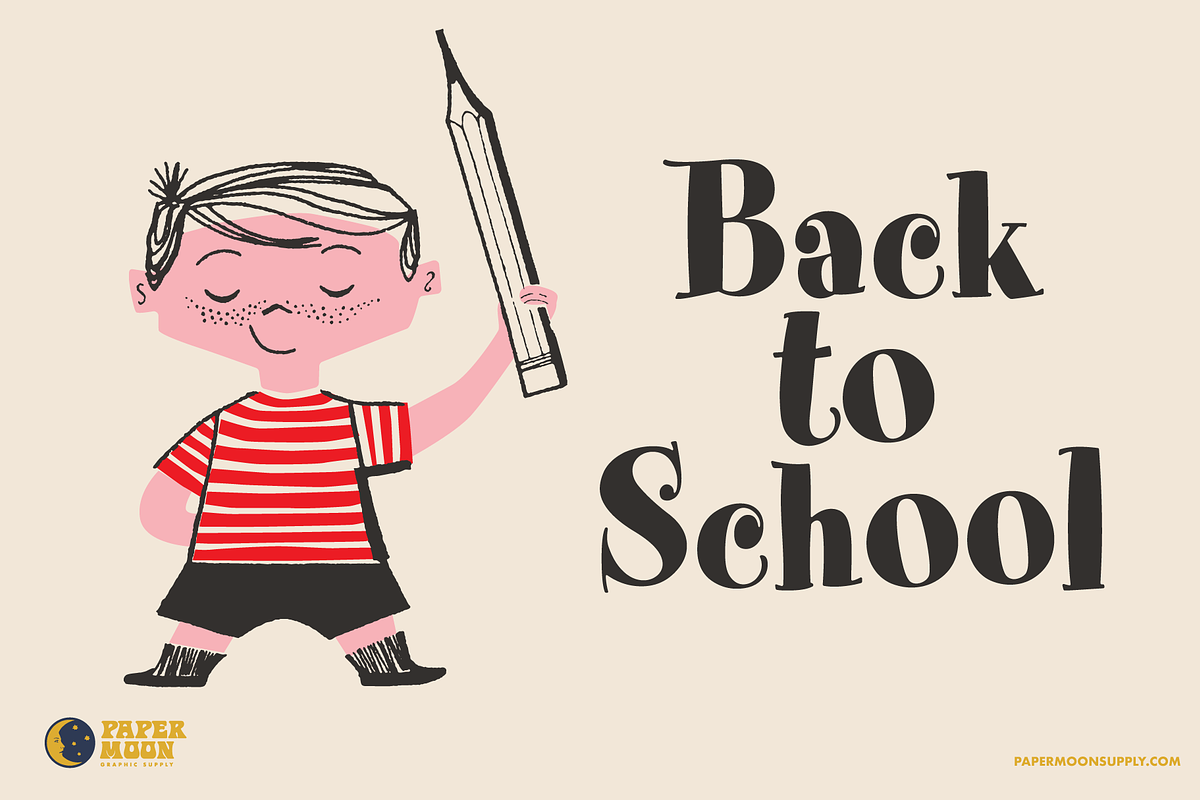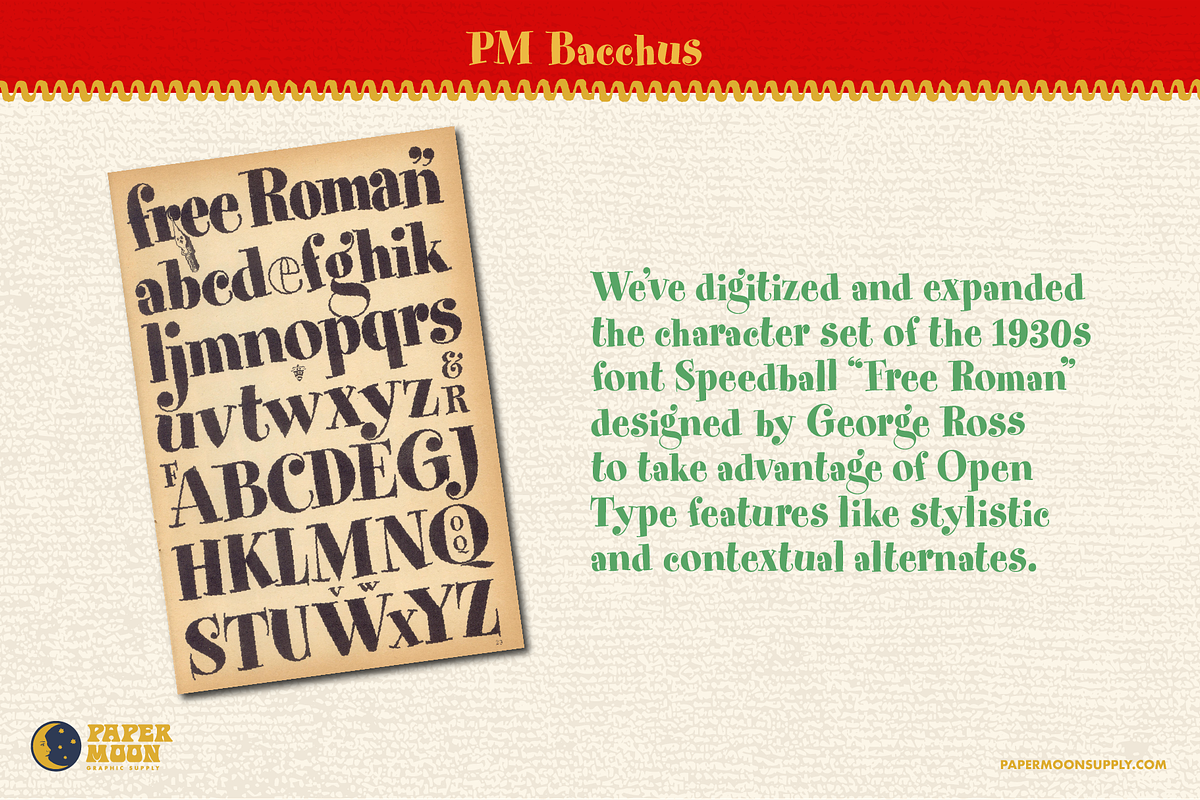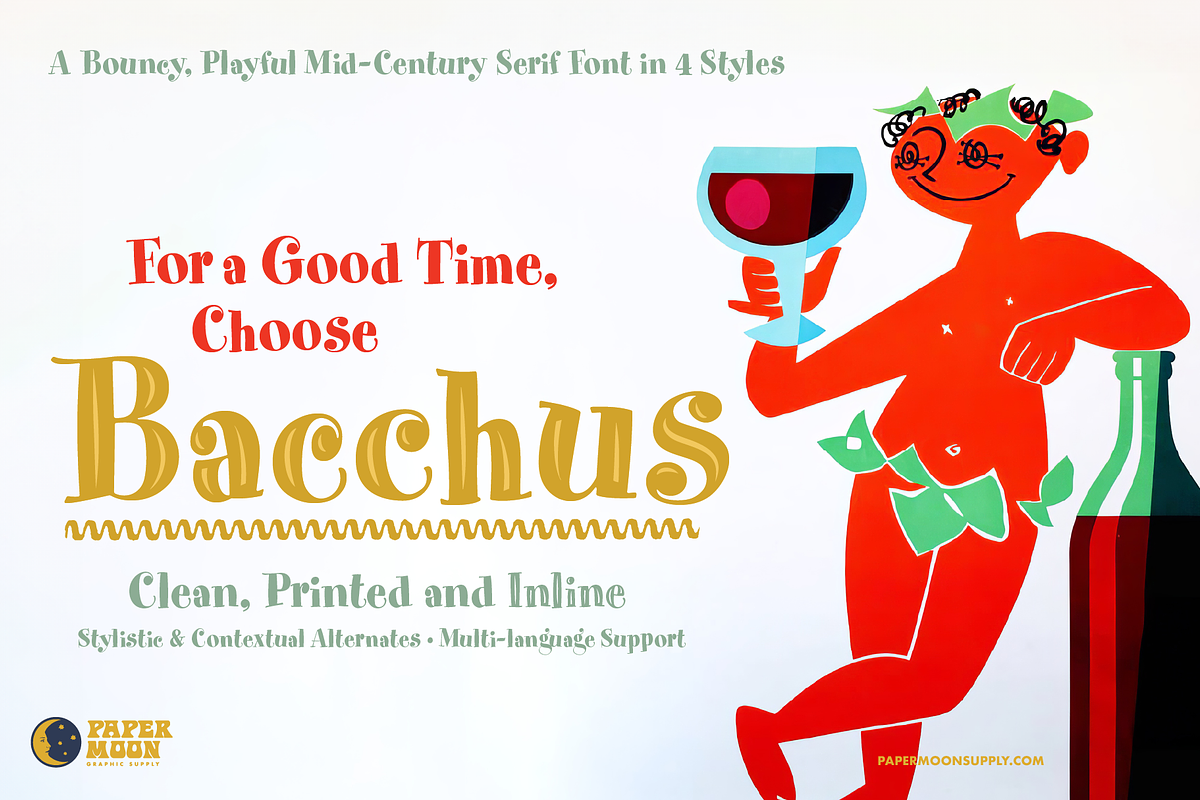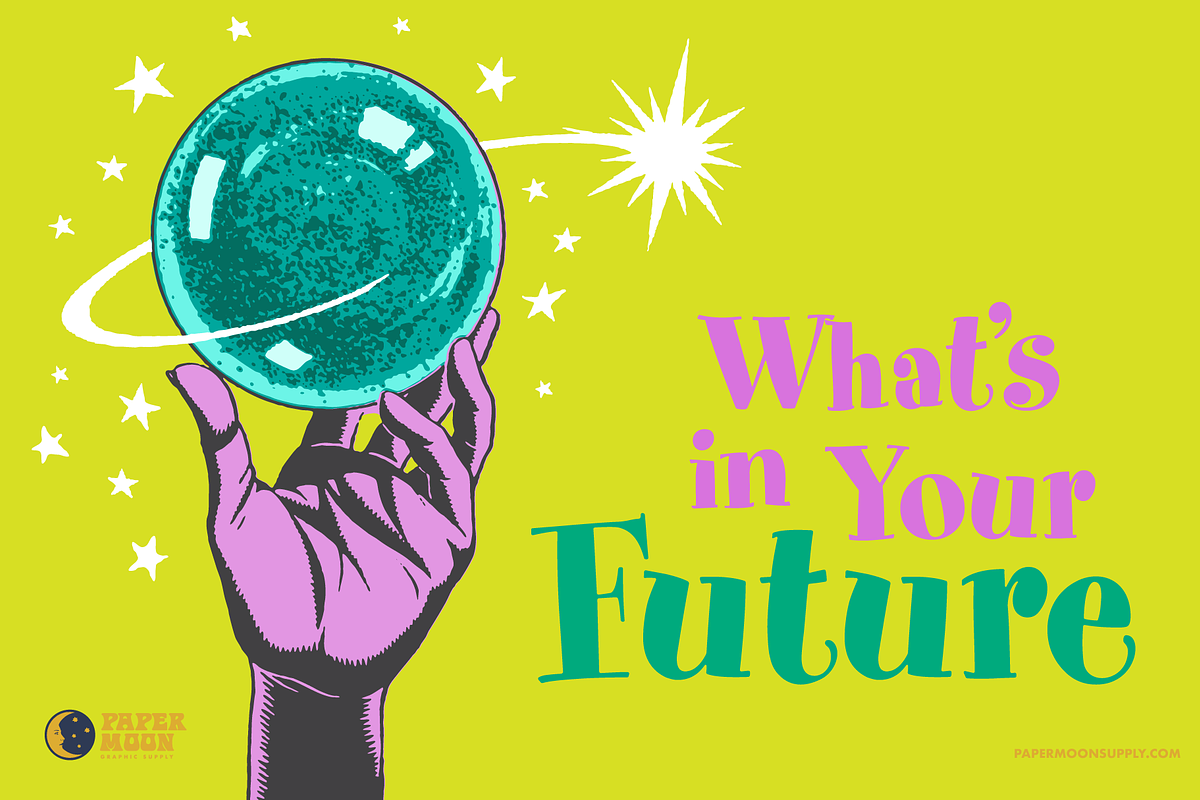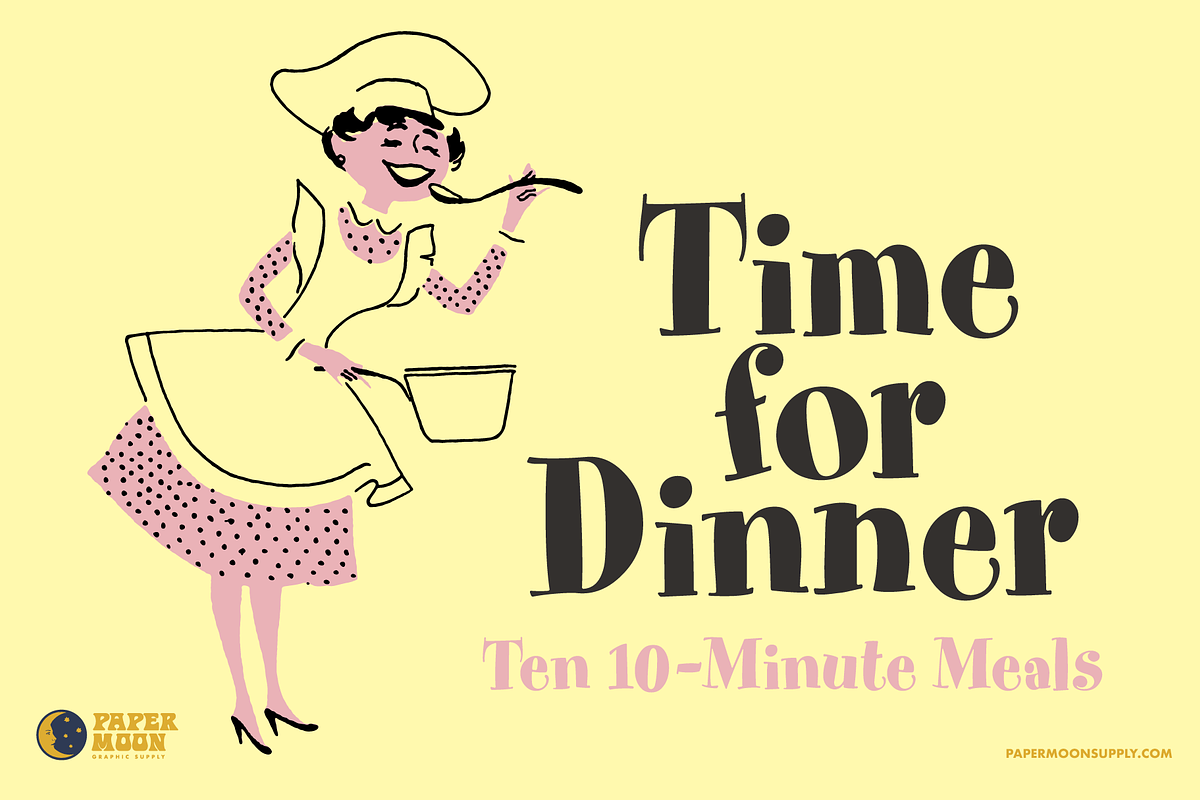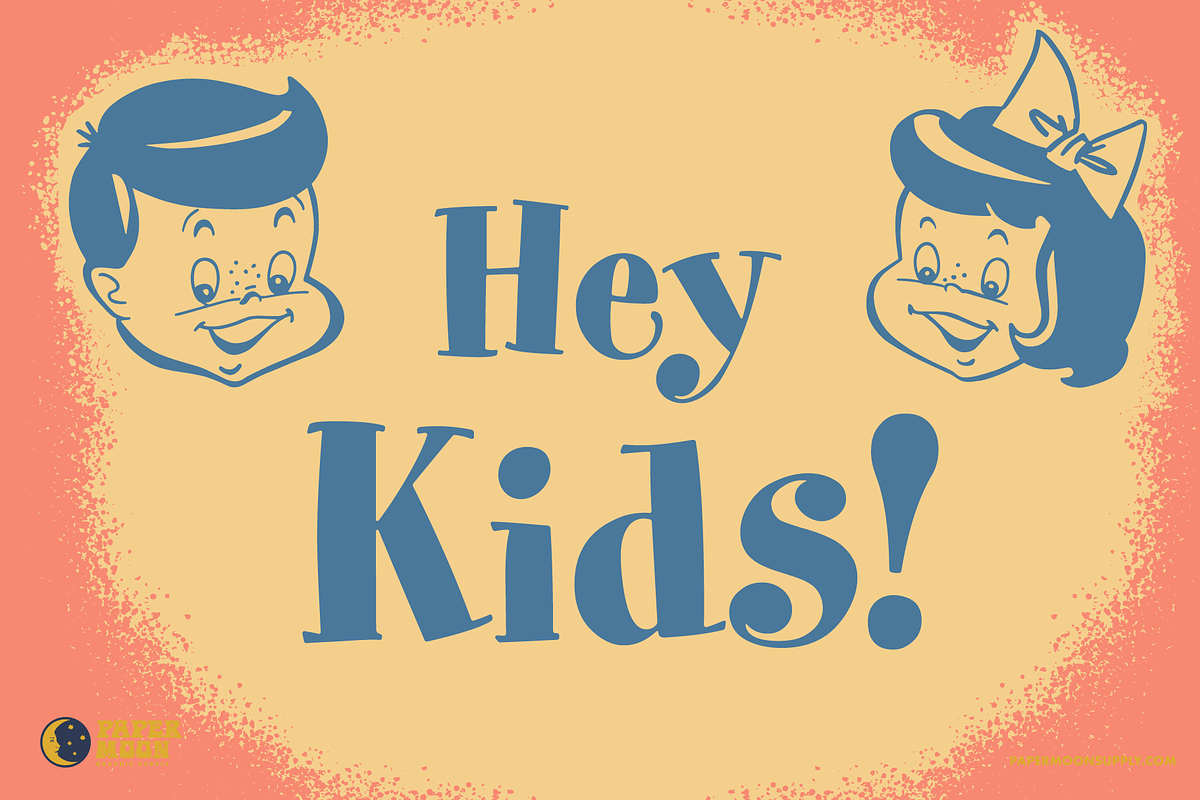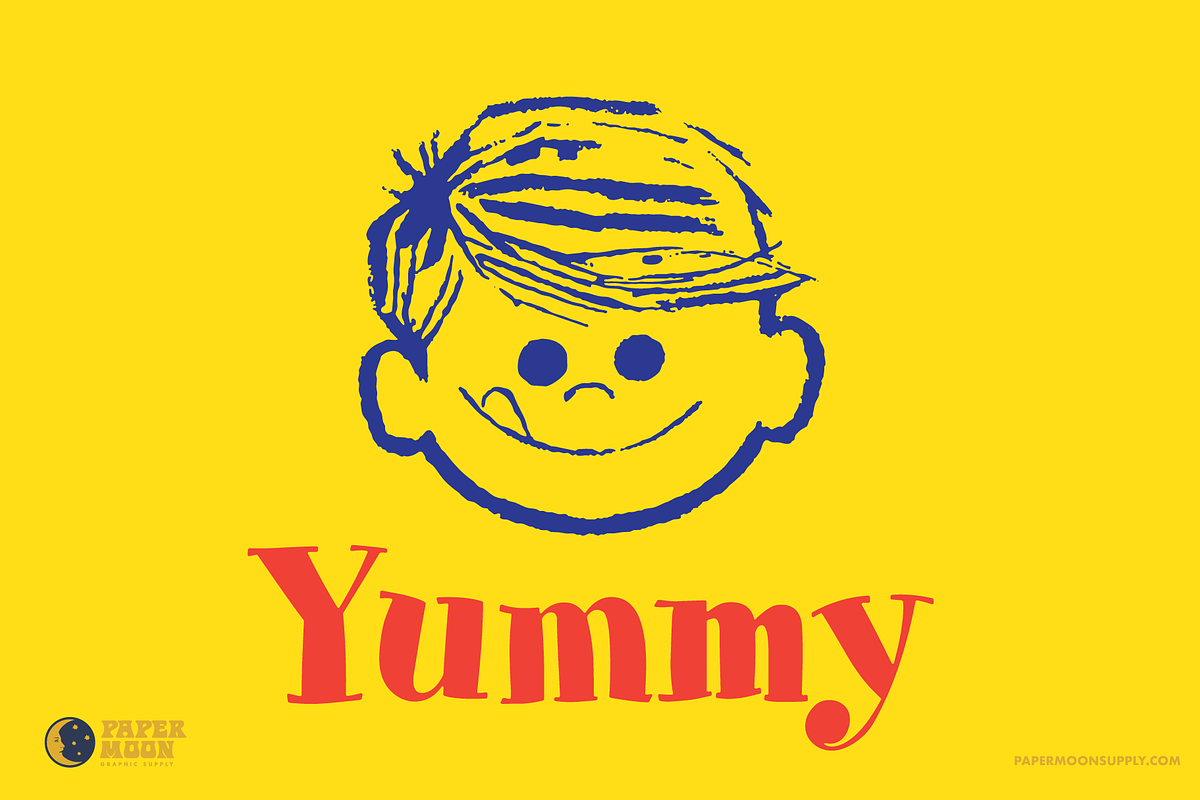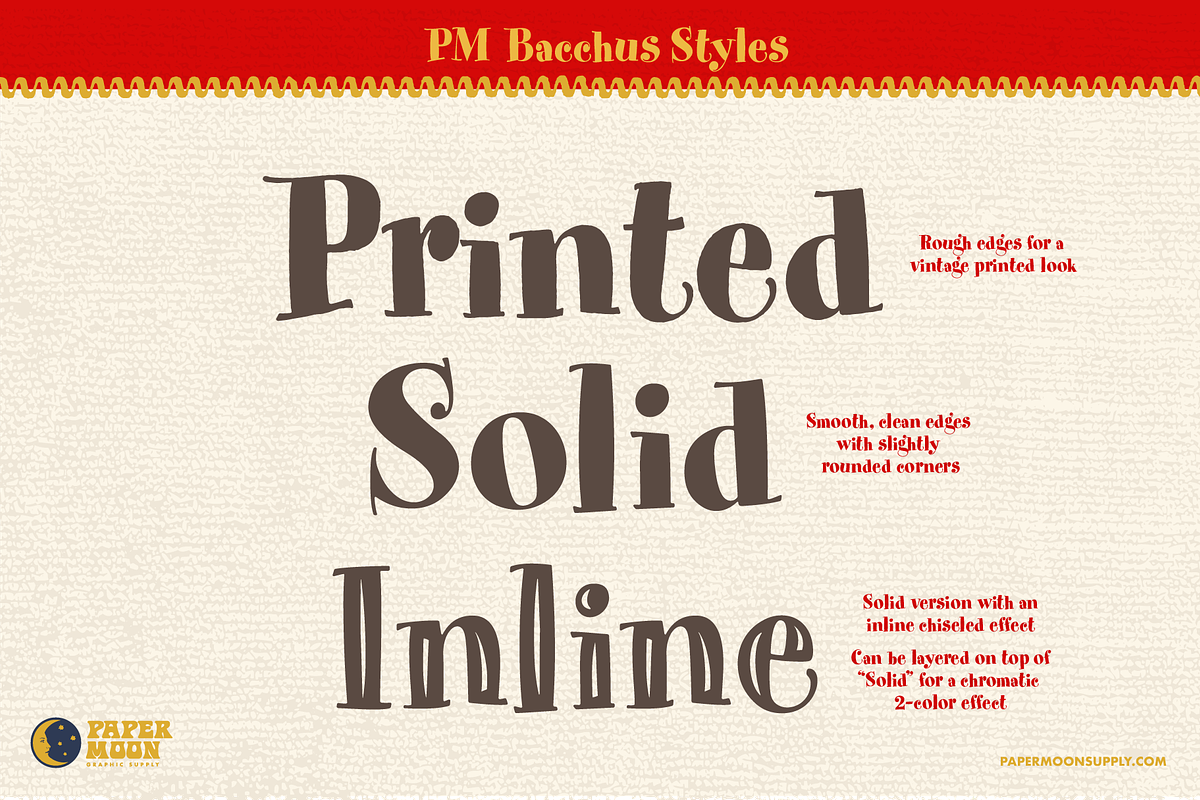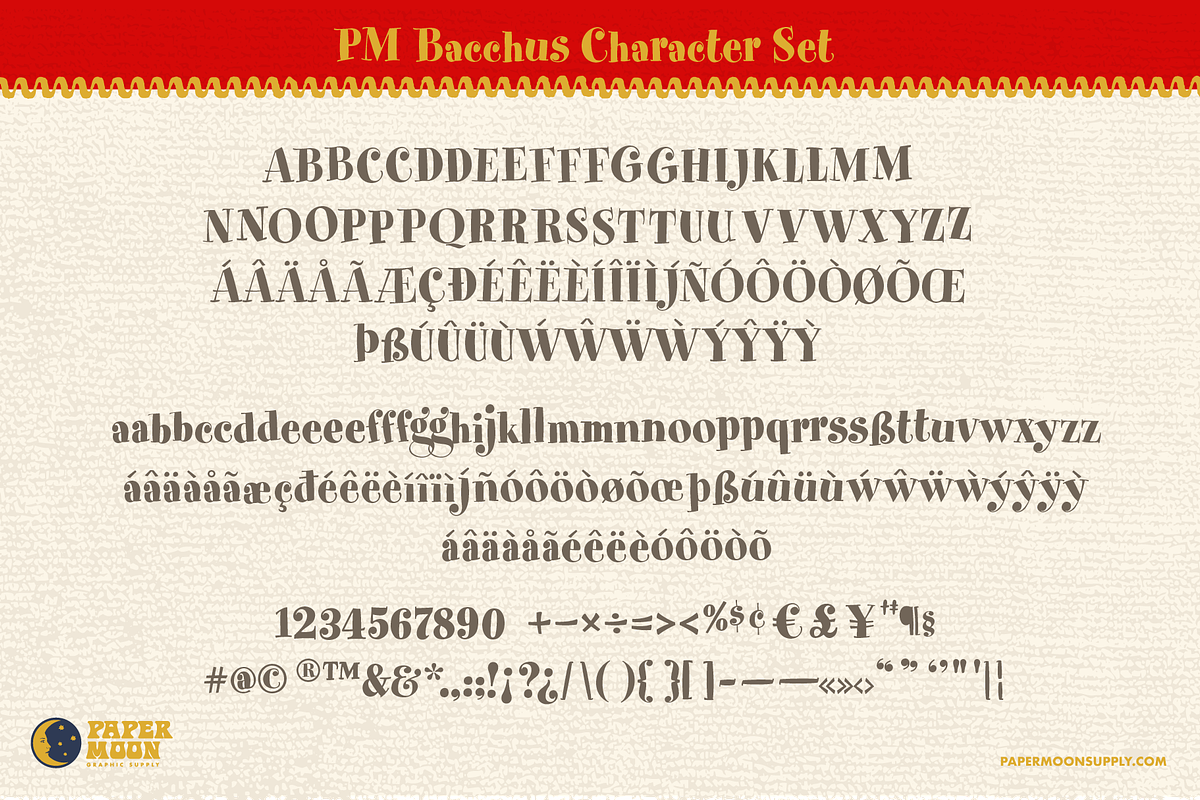
PM Bacchus Bouncy Retro Serif
PM Bacchus, a new, bouncy, retro serif font from Paper Moon Graphic Supply
We’ve digitized and expanded the character set of the 1930s font “Speedball Free Roman” designed by George Ross to take advantage of Open Type features like stylistic and contextual alternates. We've also added an inline style.
- Four styles: Clean, Rough, Inline Clean, Inline Rough
- Complete alphabet, number, and punctuation sets
- OpenType Stylistic and Contextual alternate glyphs
PM Bacchus developed by award-winning illustrator and designer Scott Banks.